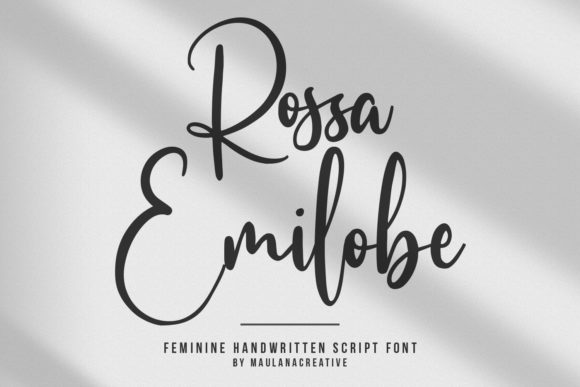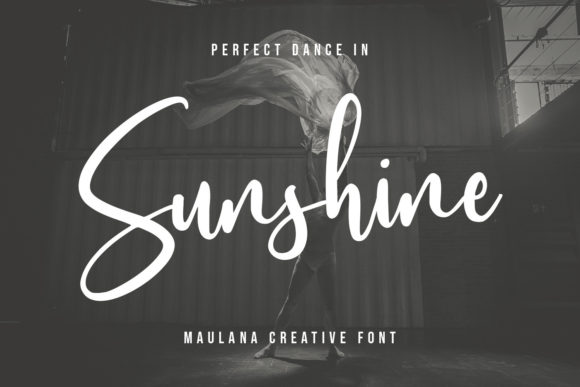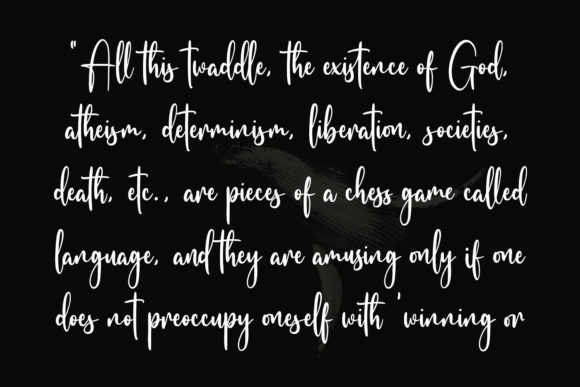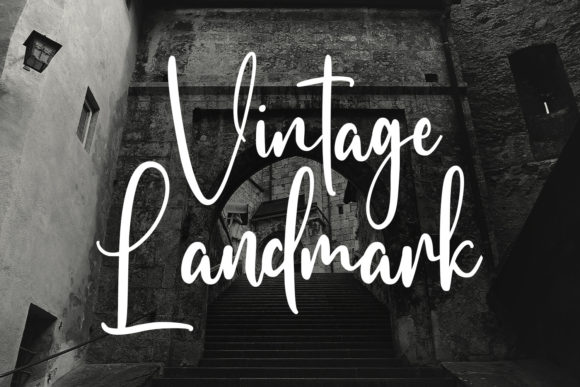
Rossa Emilobe Font
About the Rossa Emilobe Font
The wait is over! The incredible Rossa Emilobe Font is now available for your design toolkit. Rossa Emilobe is a fancy script font. It features medium contrast strokes, fun characters, ligatures and alternates. It will add a luxury spark to any design project that you wish to create!
Rossa Emilobe thrives in applications requiring a touch of playful elegance, such as wedding invitations, logos for boutiques or beauty brands, and short headlines on marketing materials. Its delicate but distinct character makes it unsuitable for body text or UI elements where high readability is paramount. Long paragraphs set in Rossa Emilobe would be difficult to read.
Pairing Rossa Emilobe effectively requires a contrasting typeface to balance its script nature. A clean sans-serif like Lato or Open Sans would provide a modern counterpoint for increased readability in supporting text. For a more classic feel, consider pairing it with a serif like Garamond or Playfair Display.
The font’s overall personality is best described as elegant yet fun; it possesses a sophisticated charm without being overly serious or stuffy. This makes it ideal for projects that need to convey both high quality and approachability.
Rossa Emilobe Font Usage Examples
Rossa Emilobe Font Example